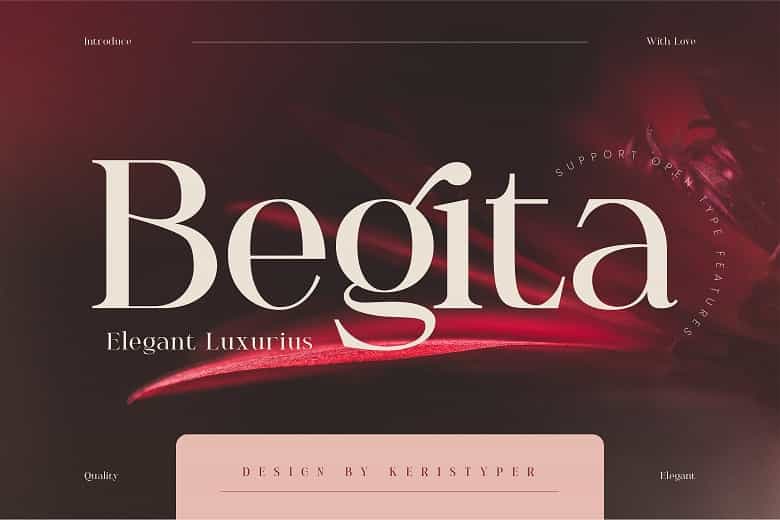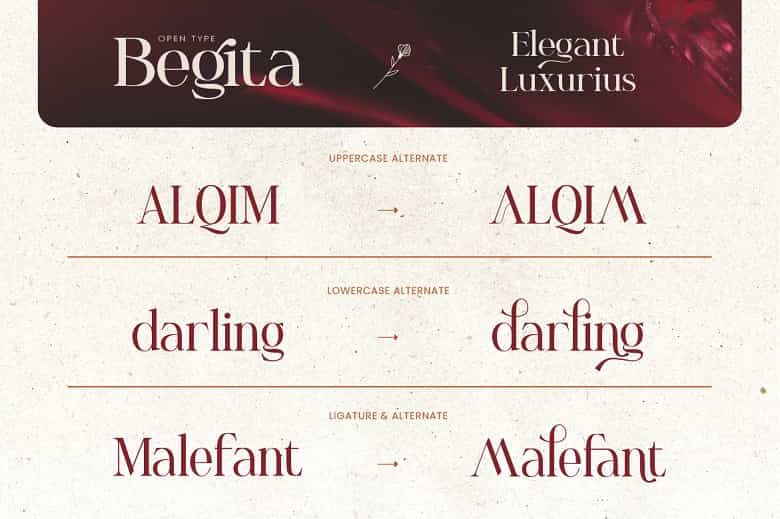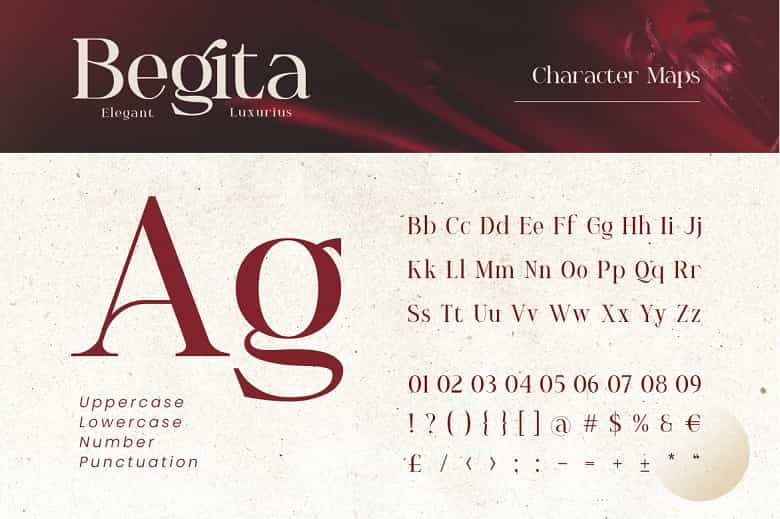
Begita is a magnificent combination of the two styles – elegance and luxury serif font. This font has a delicate and elegant design in all glyphs as it has smooth arcs and elegant lines. Created for people who want to add elements of luxury to their designs,